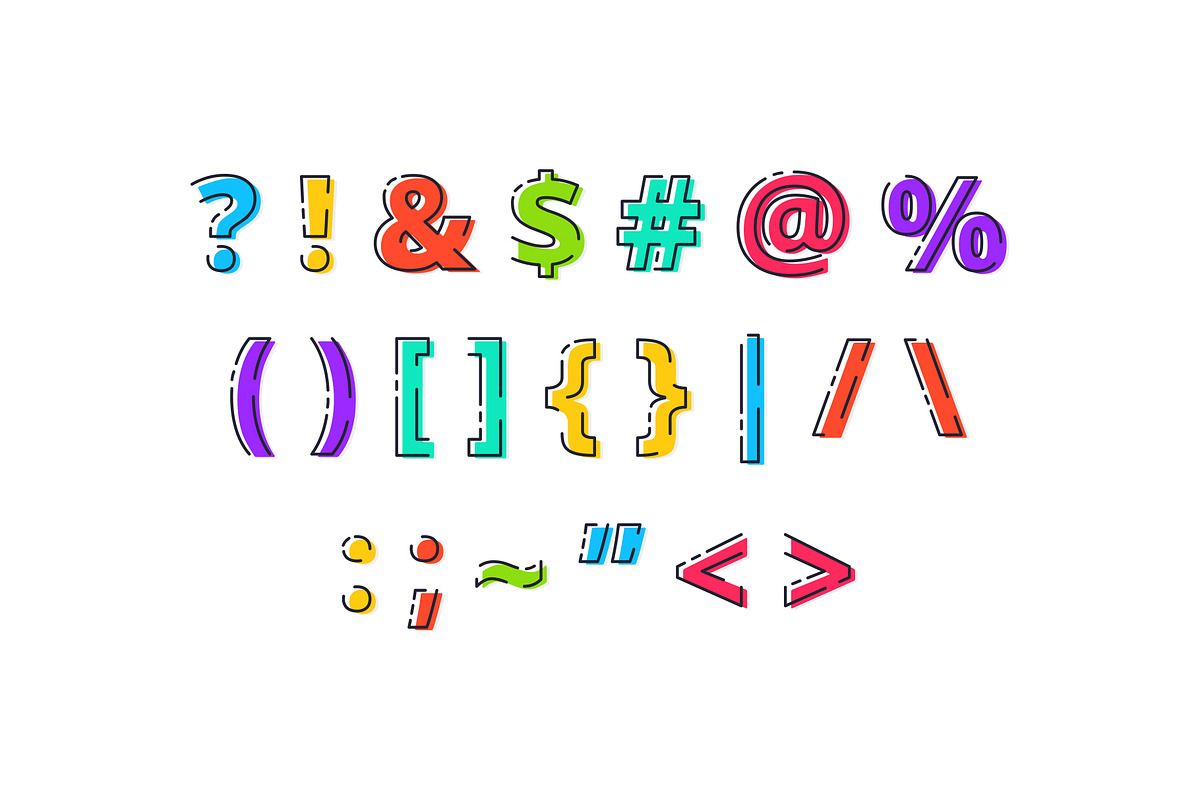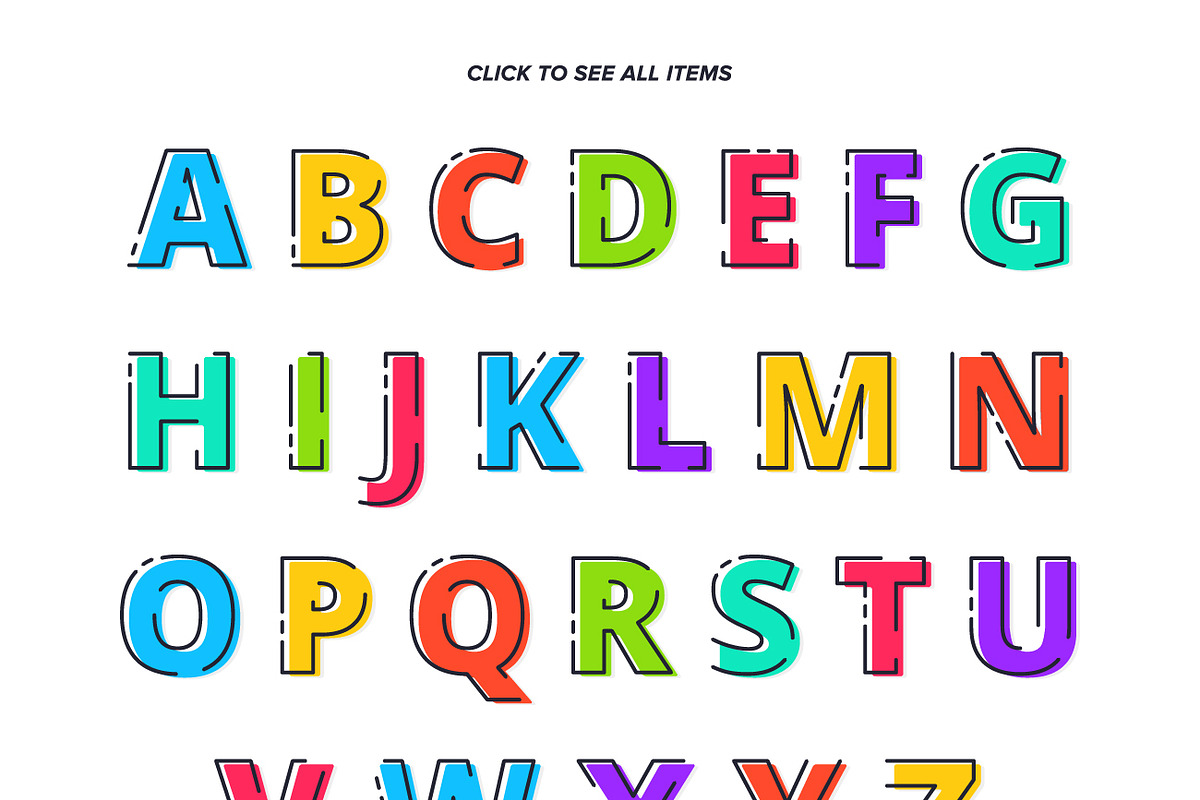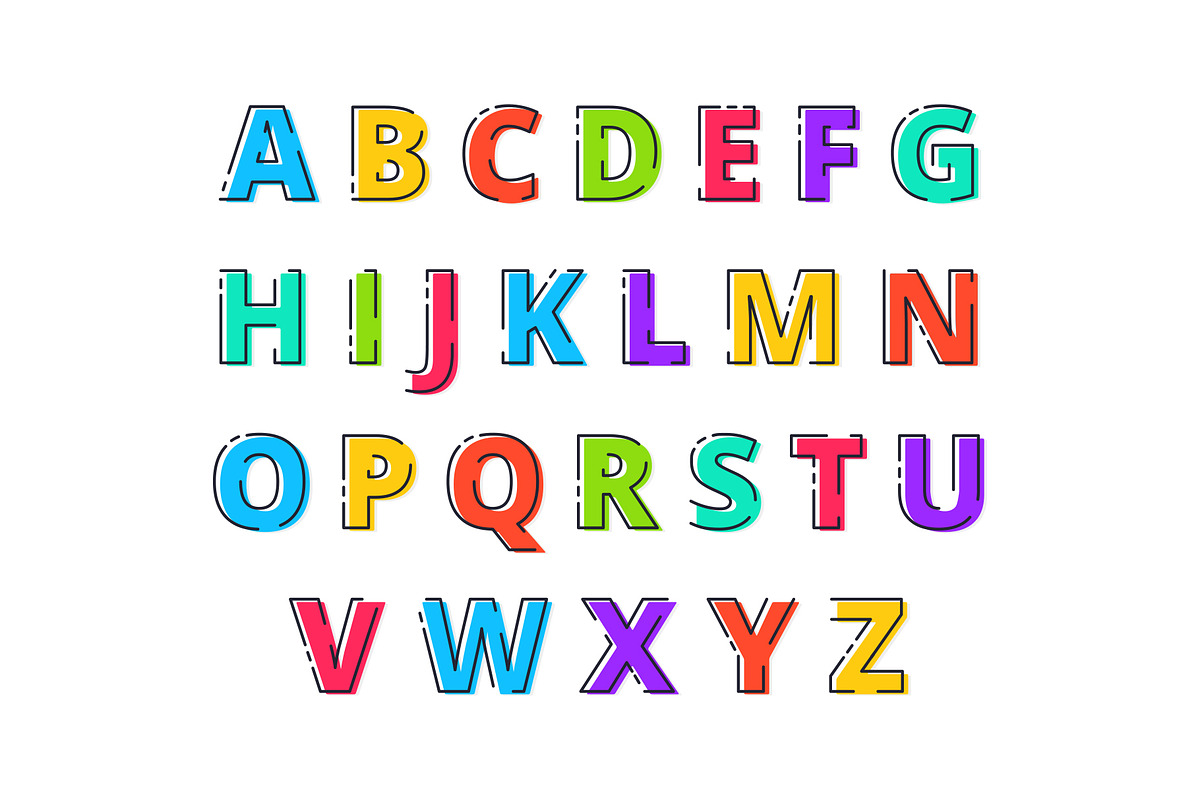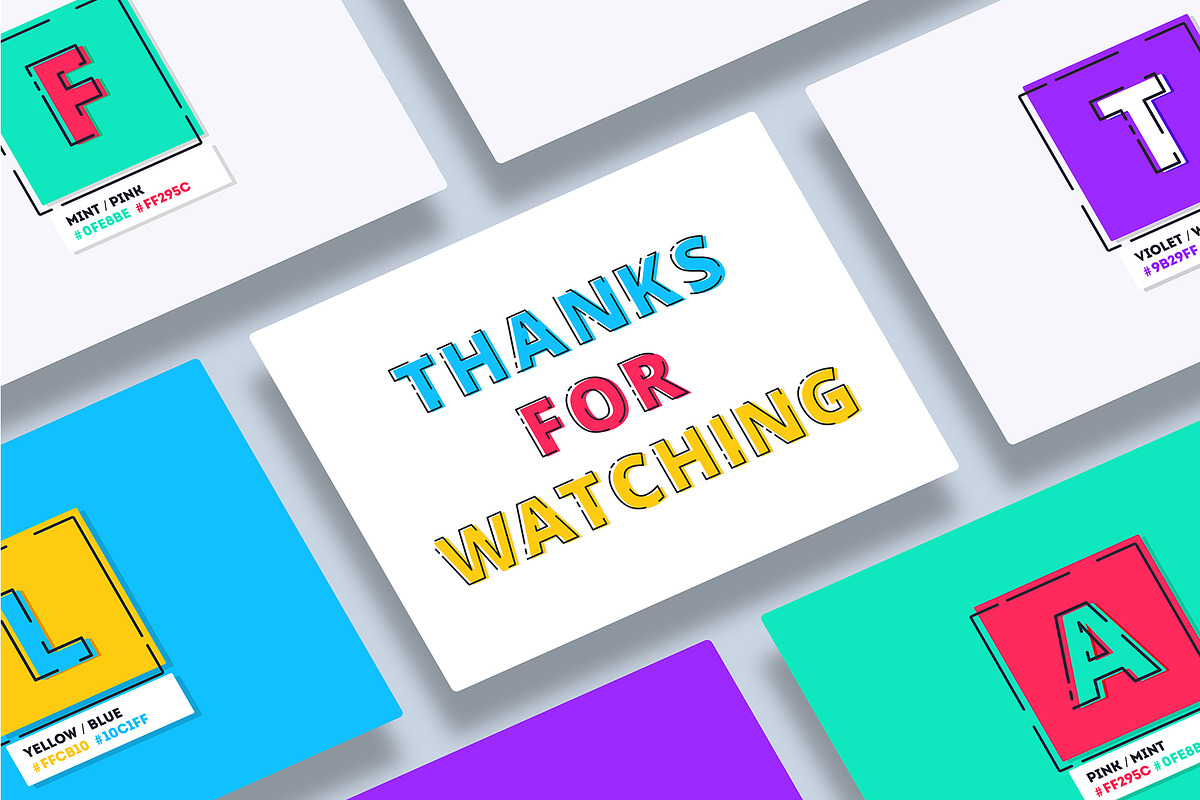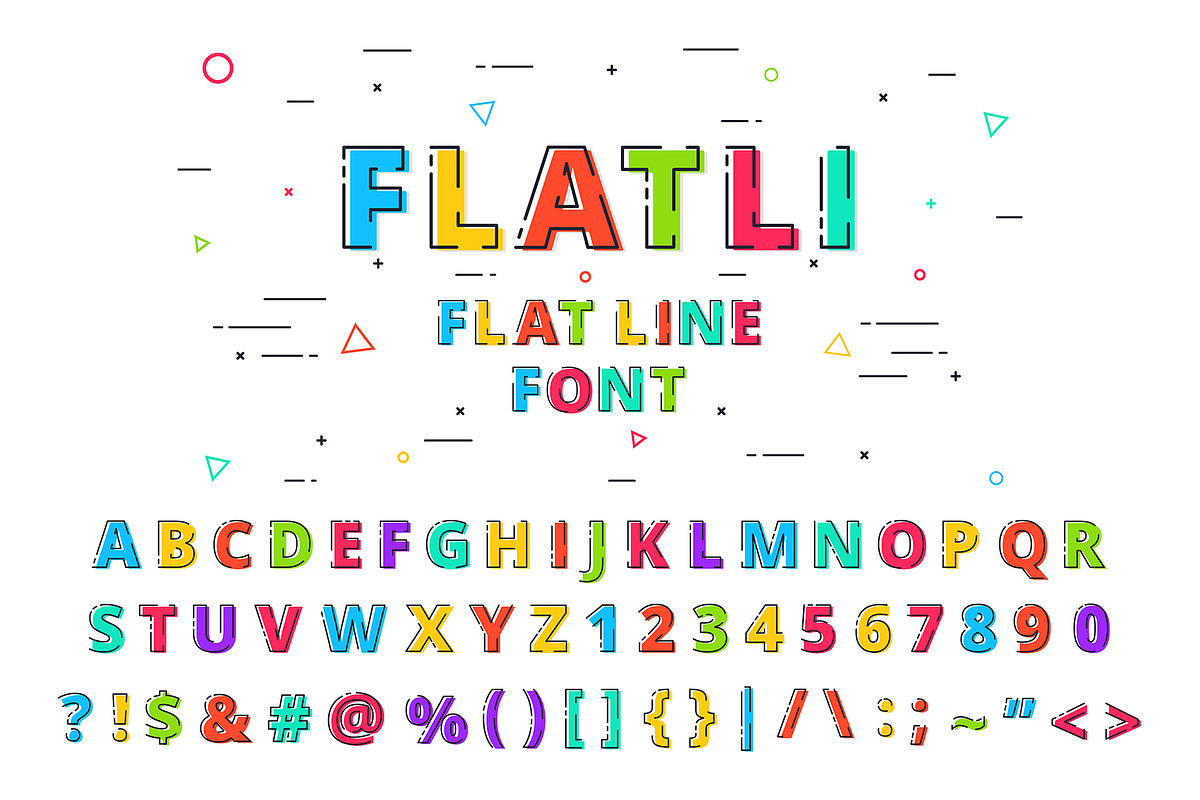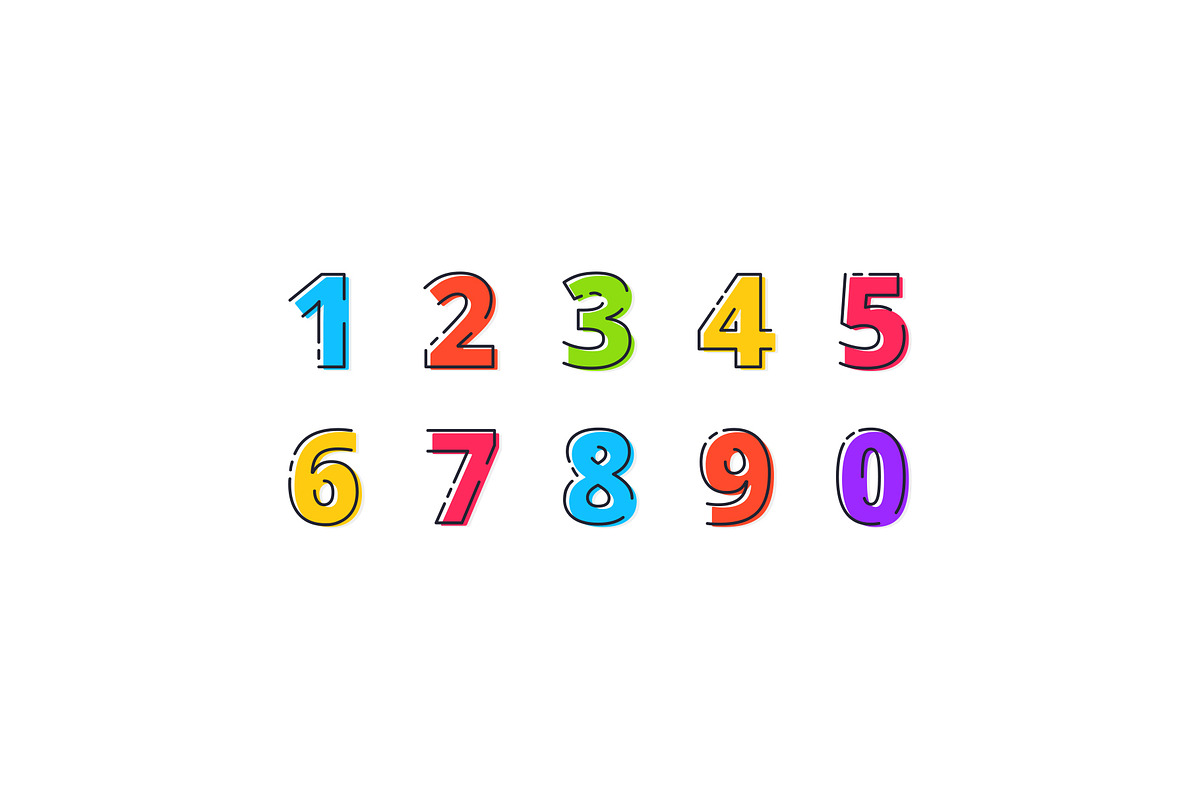
Flatli - Flat Line Vector Font
FLATLI - FLAT LINE FONT
Cute colorful vector flat line letters, numbers and symbols. Modern decorative font in line flat style. You can open and edit it with Adobe Illustration or Corel Draw
Flatli - Flat Line Vector Font by Vectone fits naturally into Branding, posters, packaging, typography.